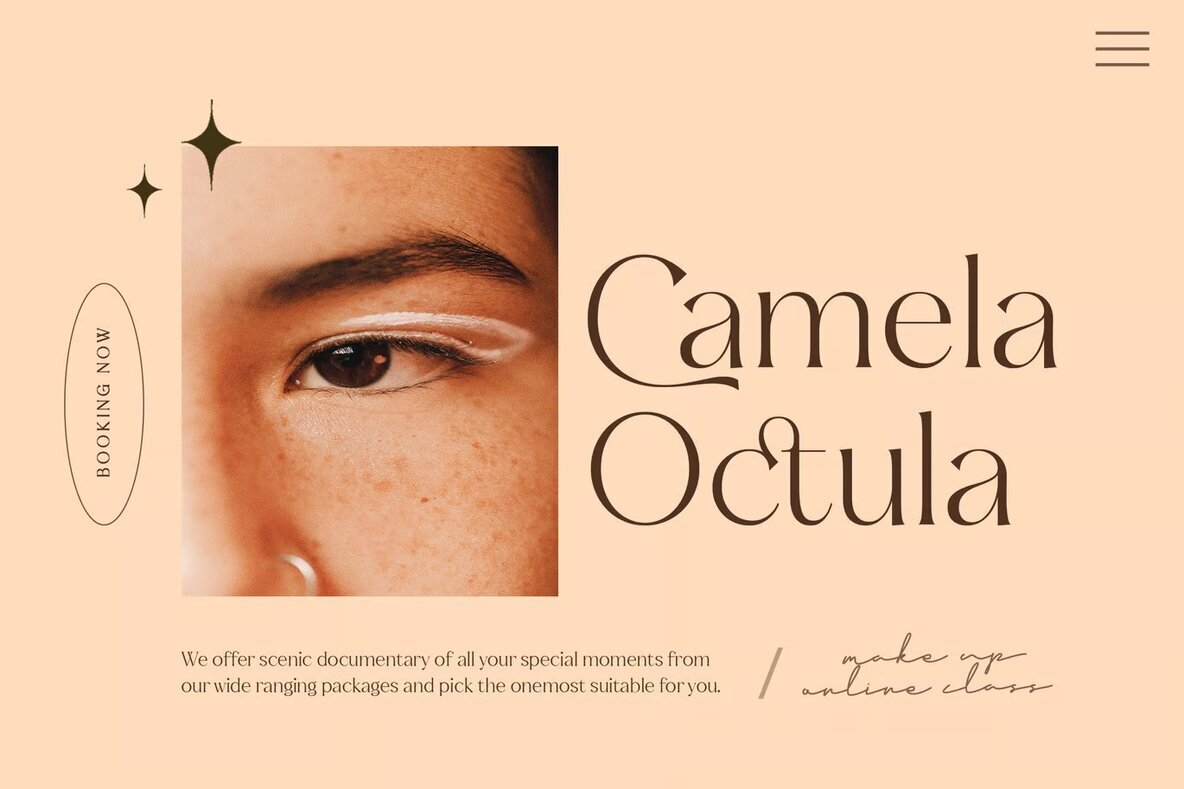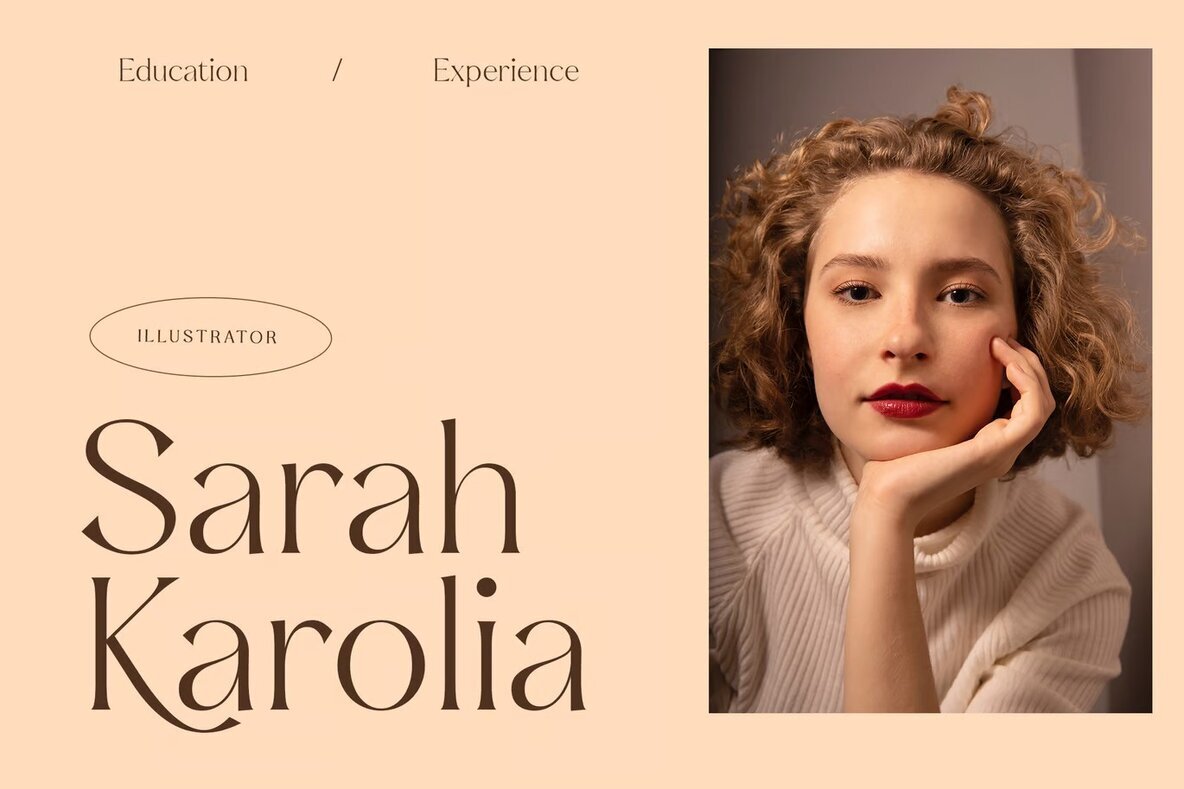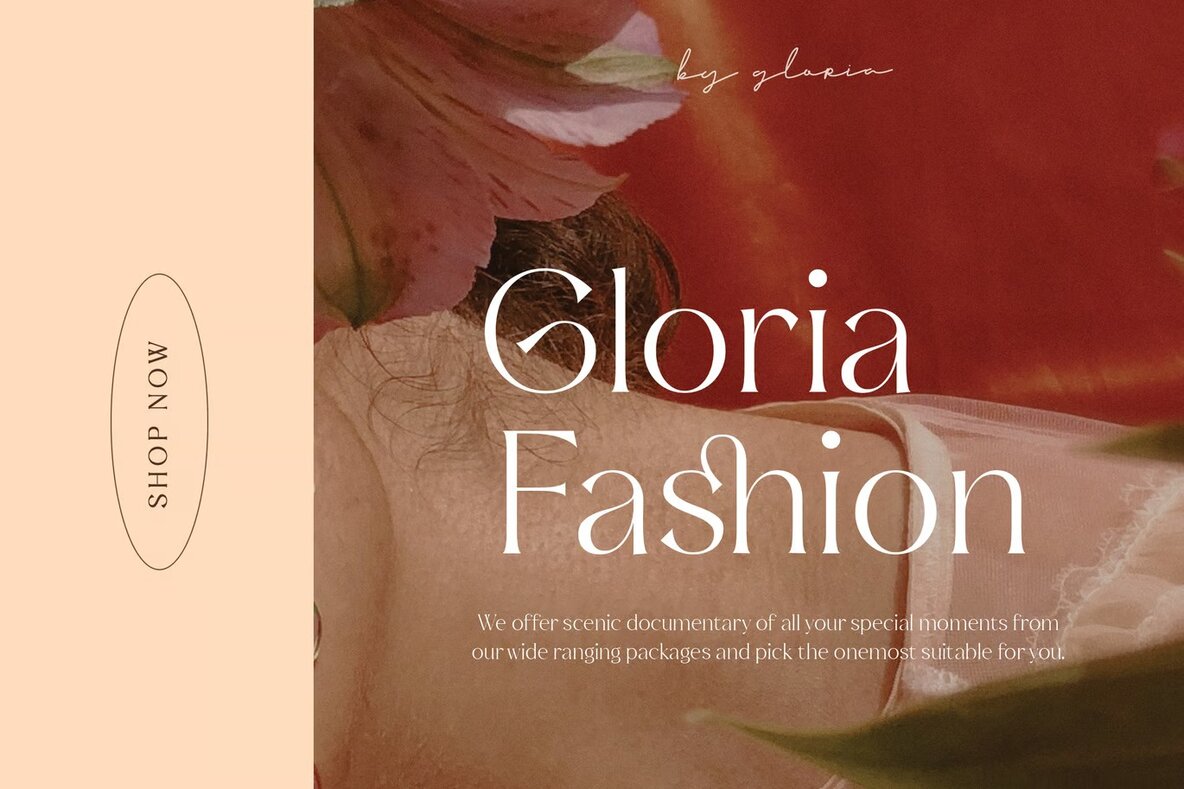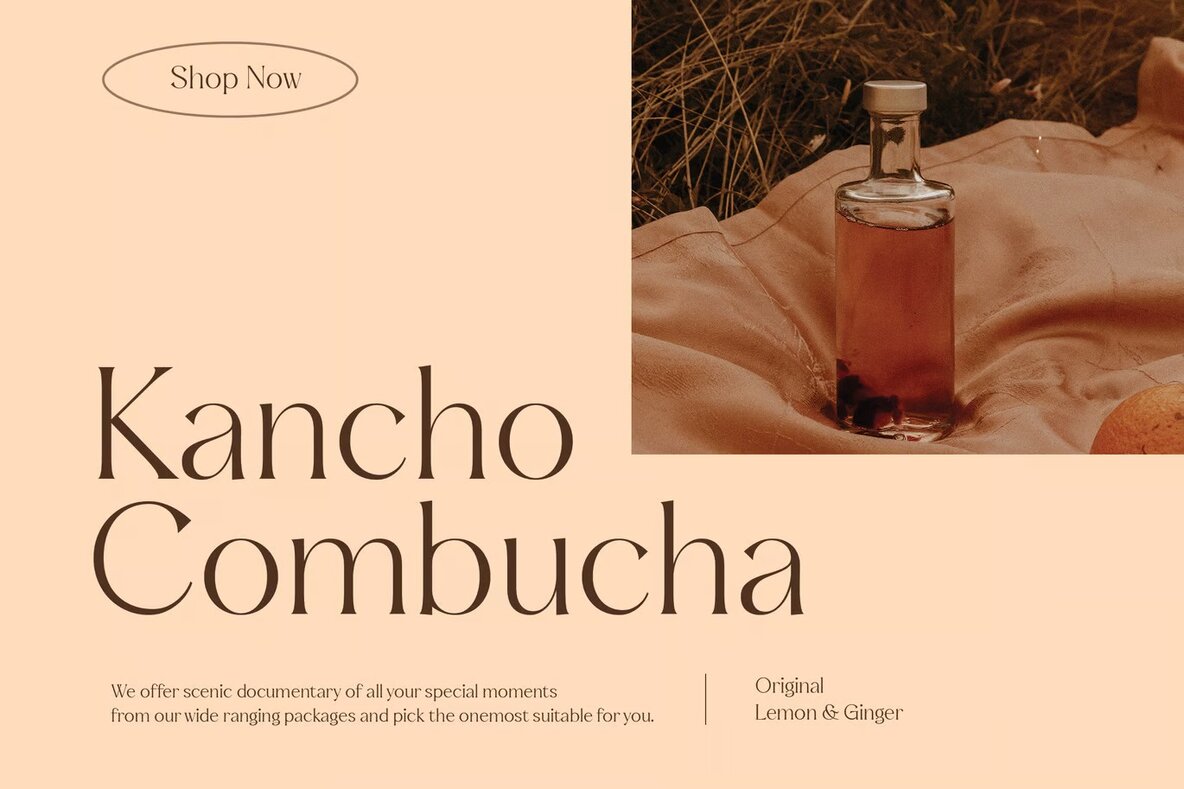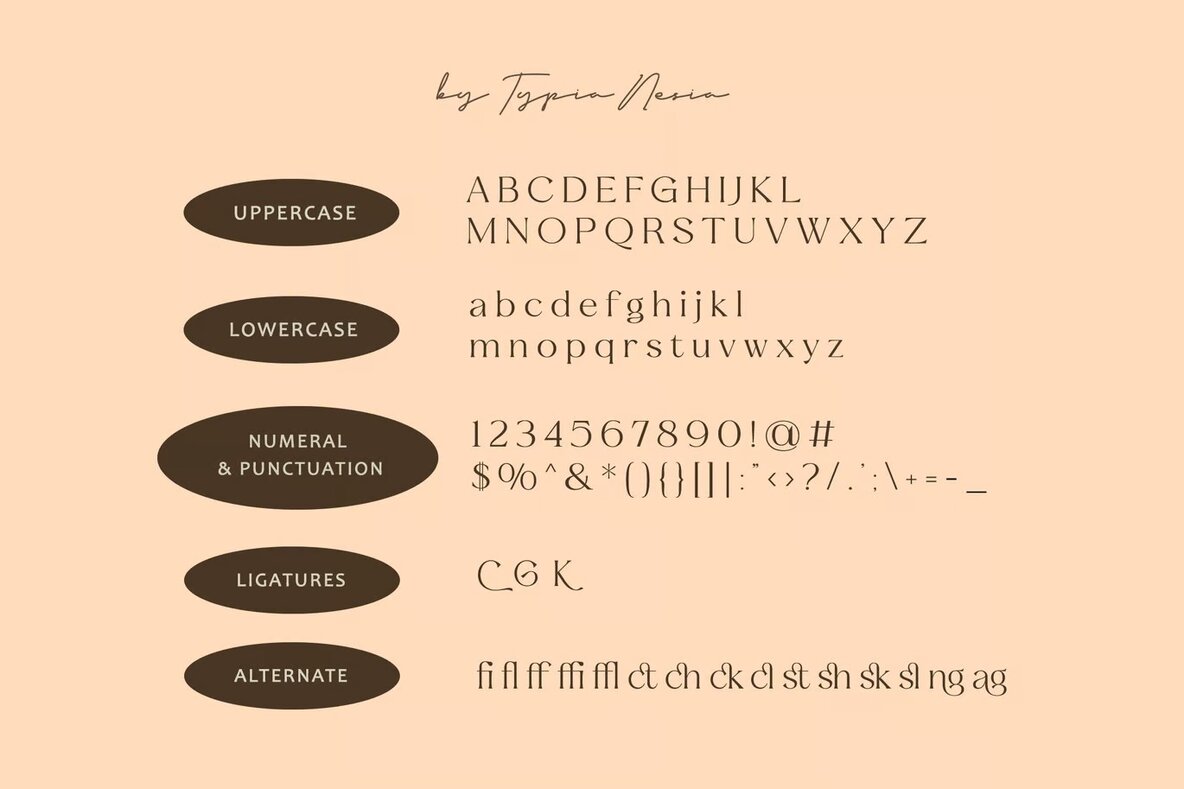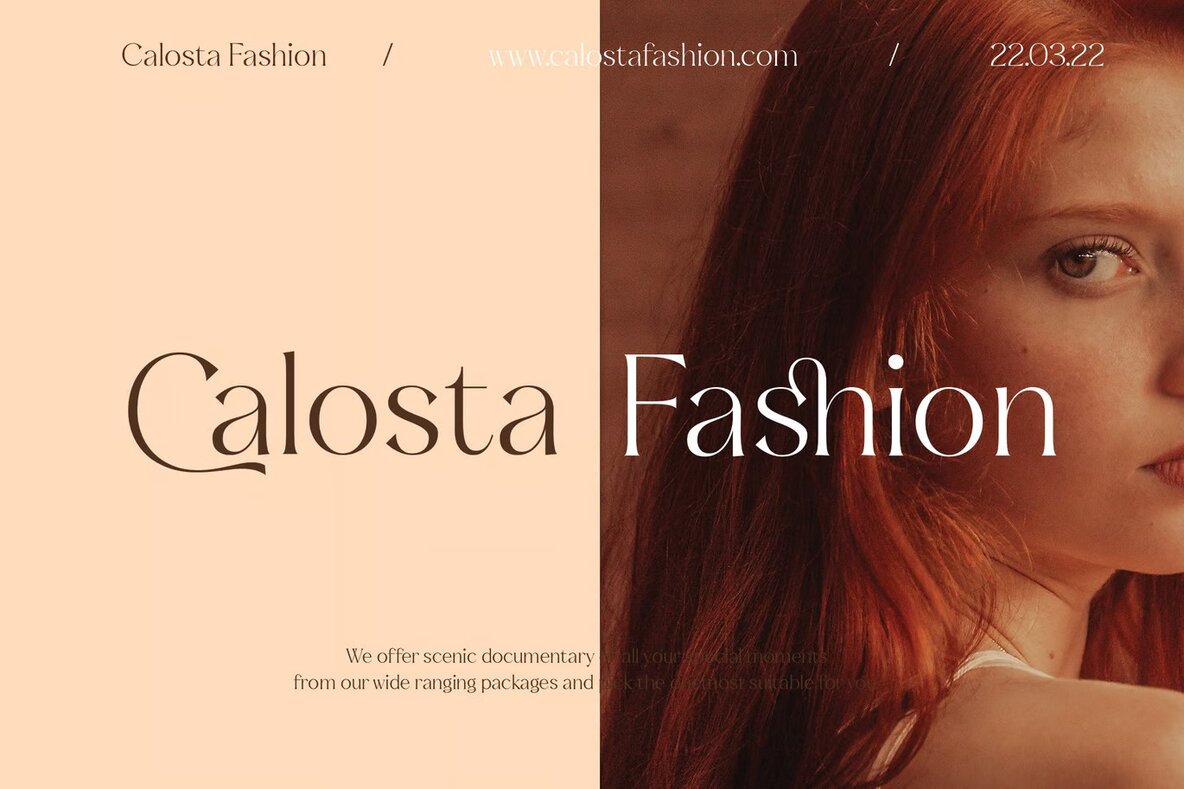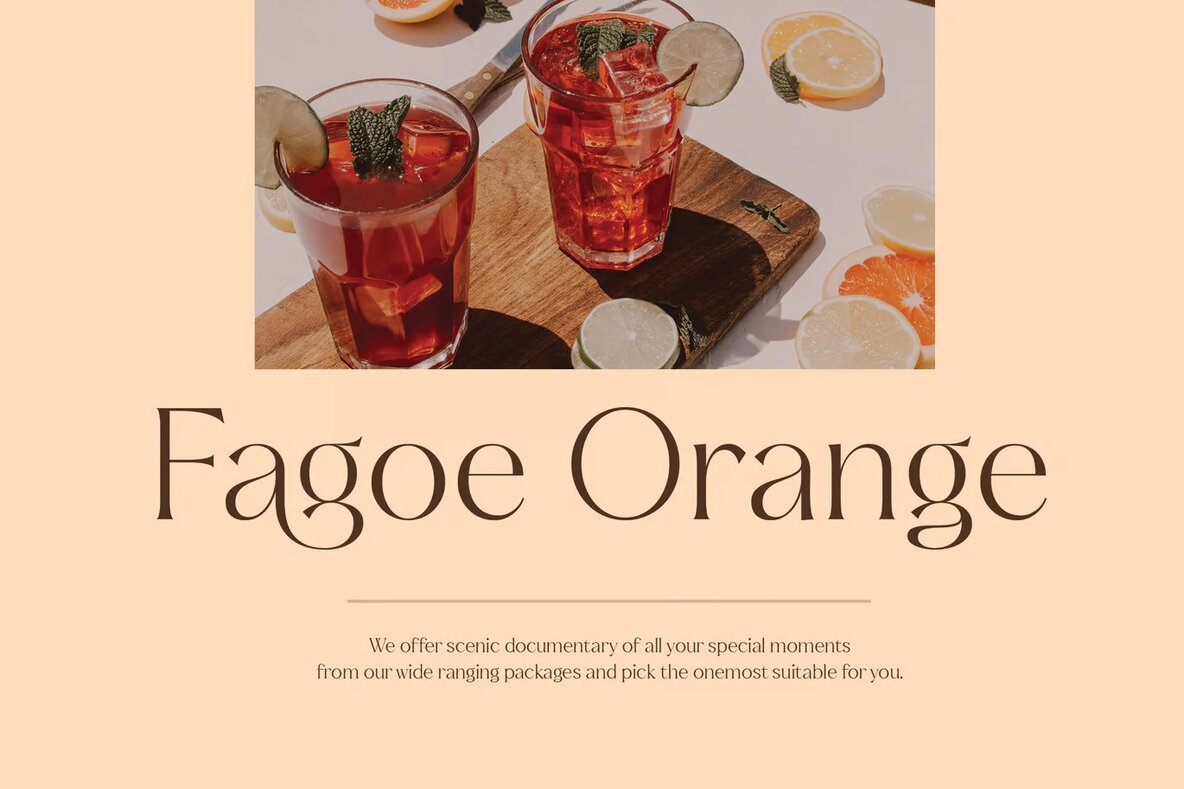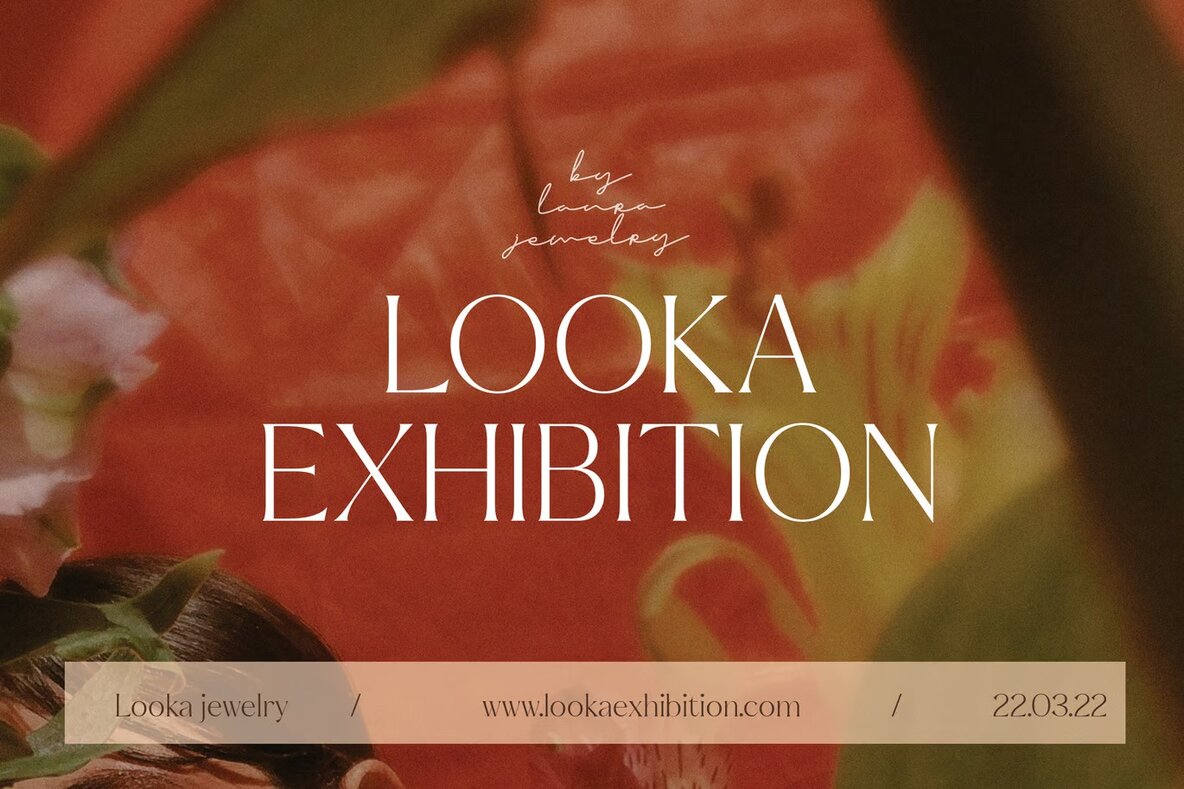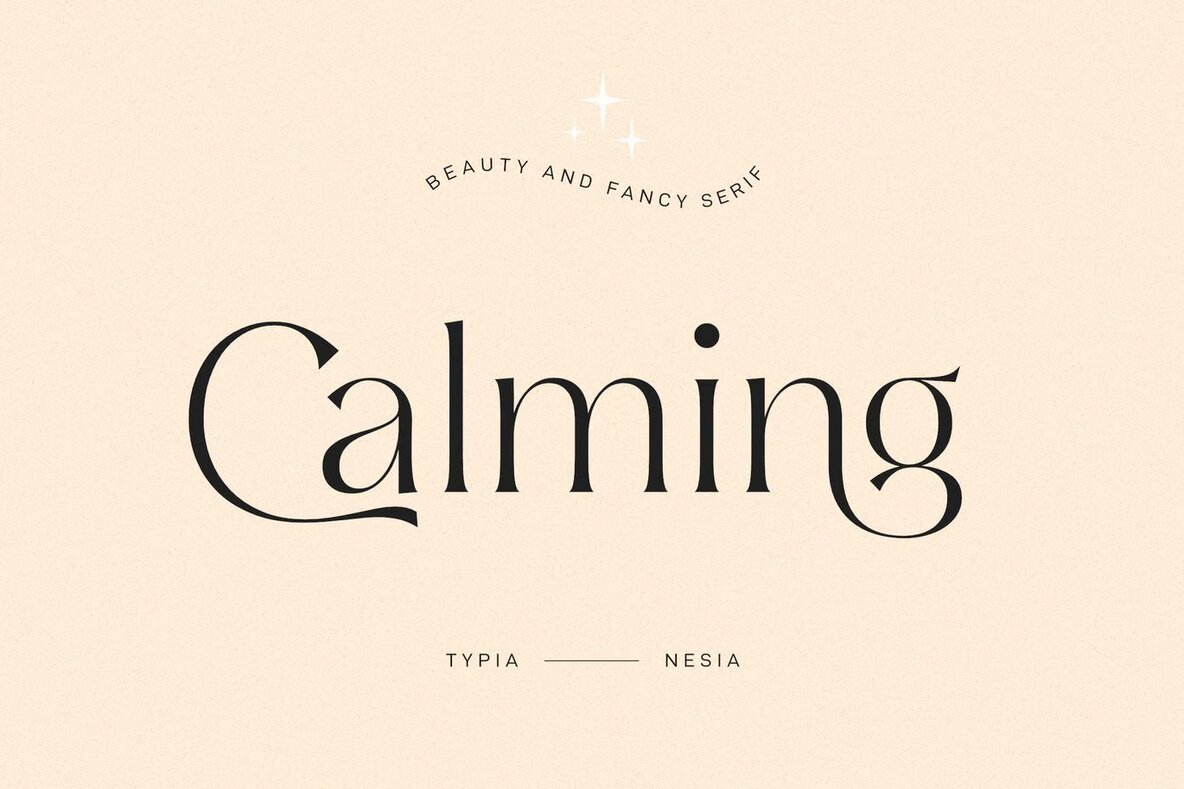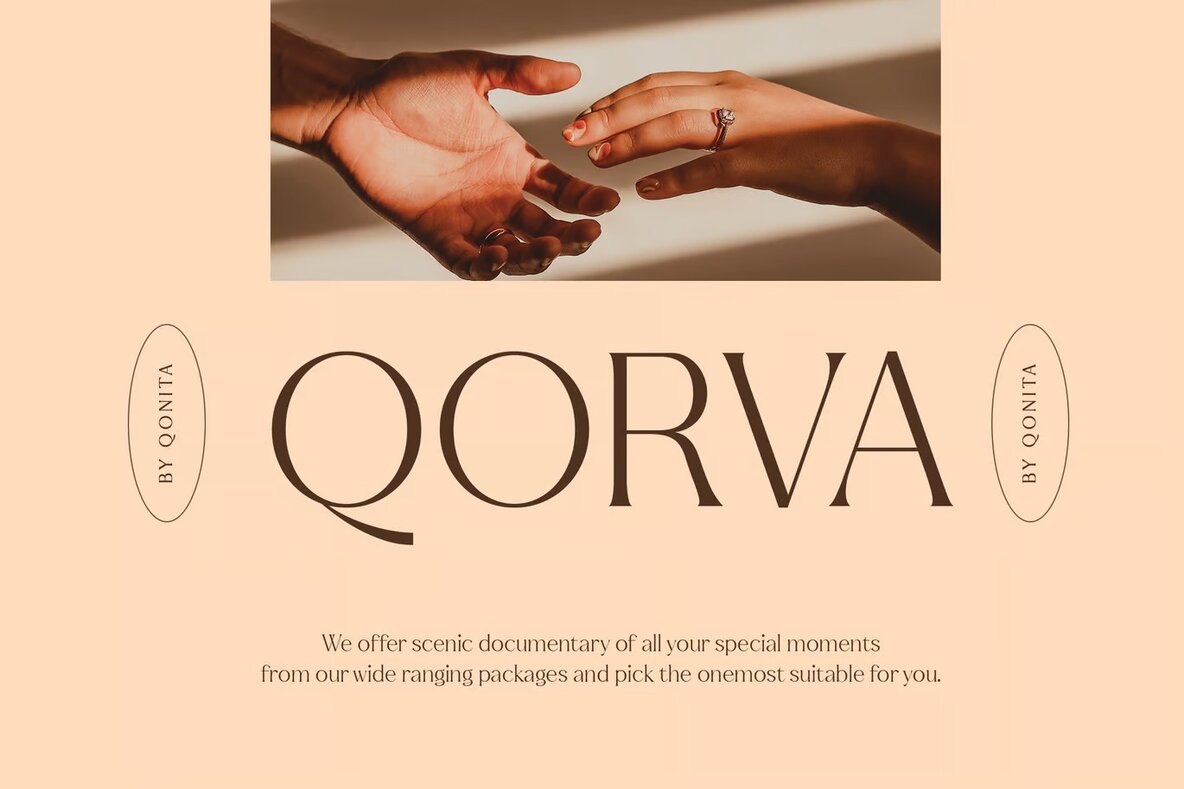
Calming Font
Calming Regular
Calming Serif is a sophisticated and elegant serif font, ideal for a wide array of design projects. Its graceful aesthetic makes it an excellent choice for luxury logo and branding projects, classy editorial layouts, and feminine branding needs. Calming Serif comes with versatile alternates and ligatures, allowing you to create unique typography designs that stand out.
This font is perfectly suited for high-end design applications such as women's magazines, cosmetic brands, fashion promotions, art gallery branding, and historical or architectural themes. It's also a great fit for boutique branding, sophisticated stationery, modern advertising, and special invitations. With its refined beauty, Calming Serif effortlessly enhances book covers, art quotes, and home decor projects, offering a touch of elegance to any creative endeavor.